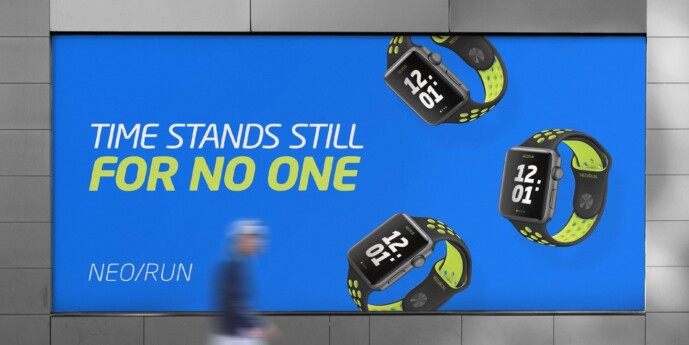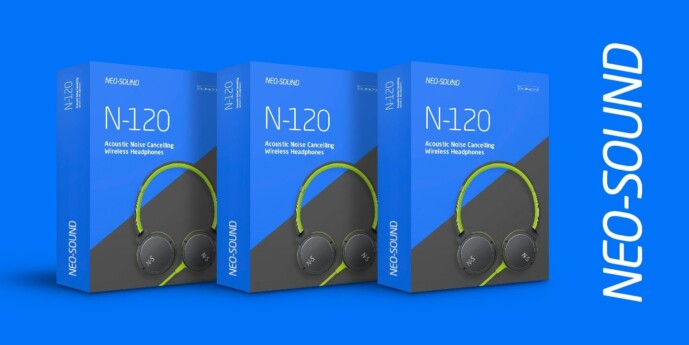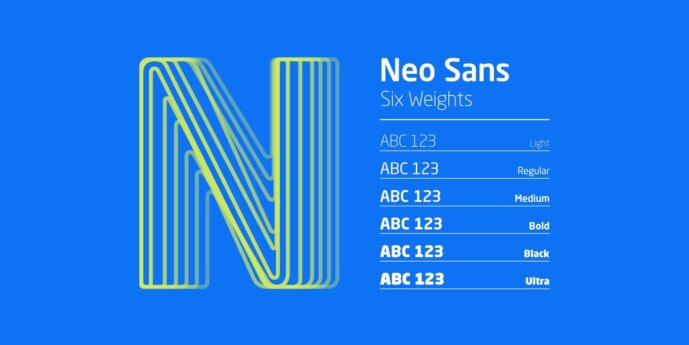
Neo Sans Font Family
Neo Sans Font Family: Designer Sebastian Lester describes his Neo Sans type collection as “legible without being neutral, nuanced without being fussy, and expressive without being distracting.” Featuring rounded, square sans letterforms, the Neo Sans family is available in six weights, ranging from light to ultra, with companion italics. Its forward-looking personality makes it an excellent choice for branding projects, as well as for editorial or publication design. Pair the NeoSans collection with a serif design for interesting typographic contrast; for more direct continuity, consider the typeface’s sister design—the Neo Tech family also from Lester, available in six weights with matching italics.